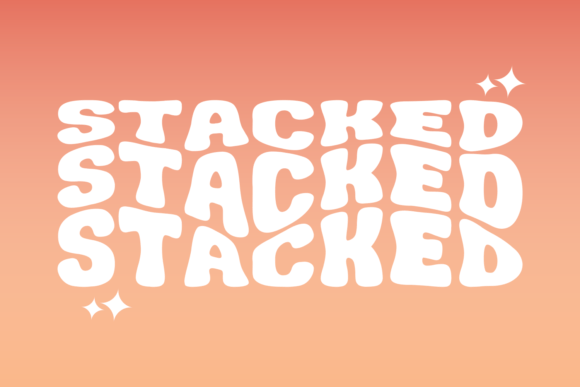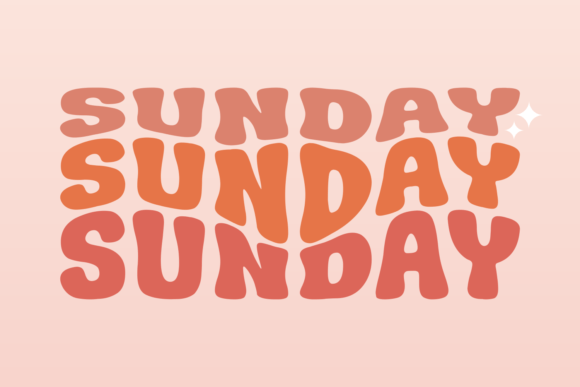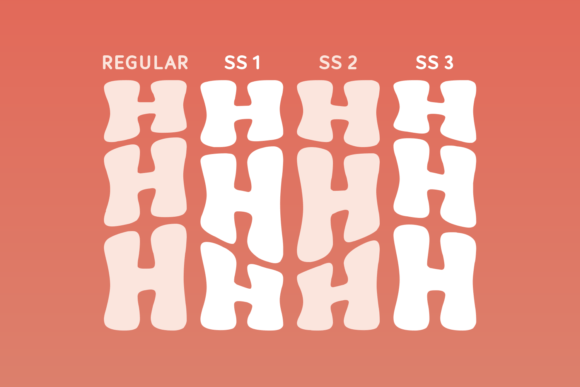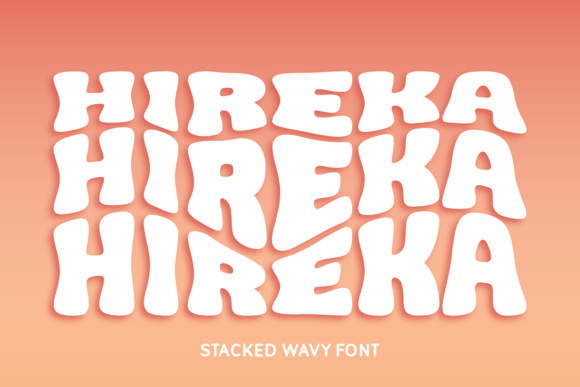
Introduction to Hireka Font
Hireka is a stacked wavy font characterized by its unique and playful design.
Each letter is crafted with wavy lines that stack upon each other, creating a dynamic and flowing appearance reminiscent of waves or undulating ribbons The font’s wavy texture adds a sense of movement and fluidity, giving it a lively and energetic vibe.